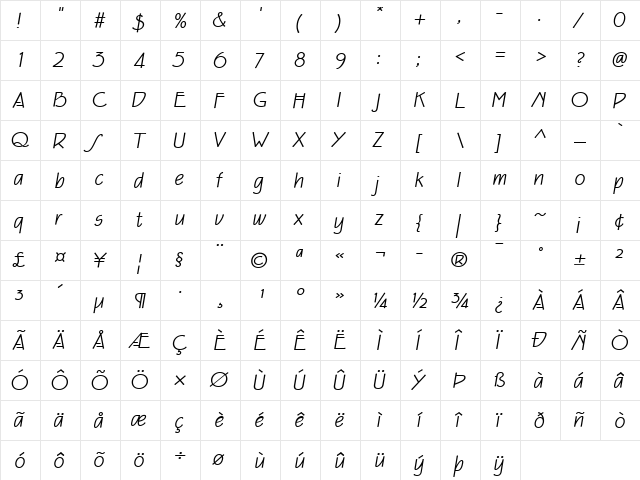
EaglefeatherInformal Italic
Design Context for EaglefeatherInformal Typeface
EaglefeatherInformal takes a measured approach to typography — its balanced proportions and neutral character make it a reliable workhorse for both digital and print work. Its italic angle brings a sense of urgency and motion to the letterforms.
Pro Tip: Use EaglefeatherInformal for emphasis, pull quotes, and subheadings where its slanted energy can add rhythm to the layout.